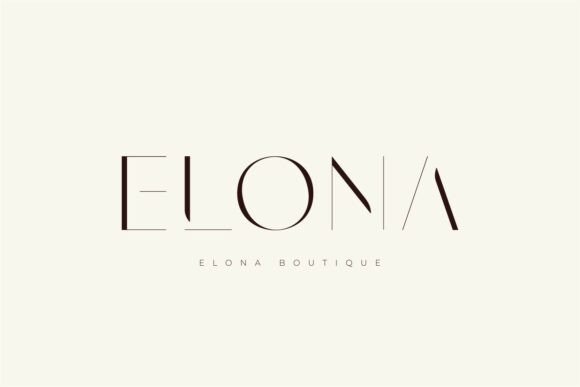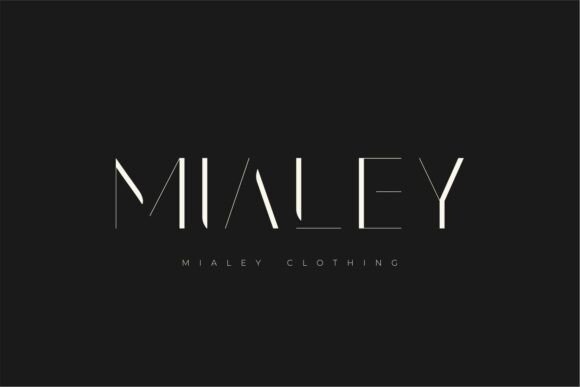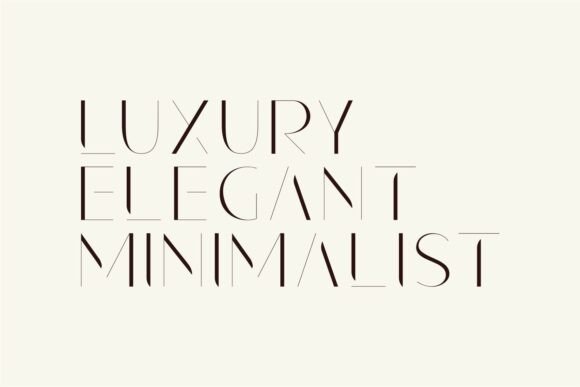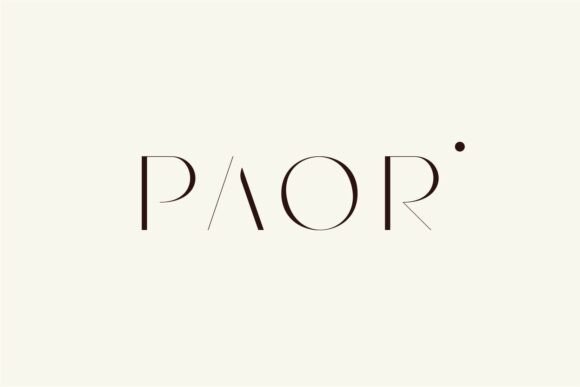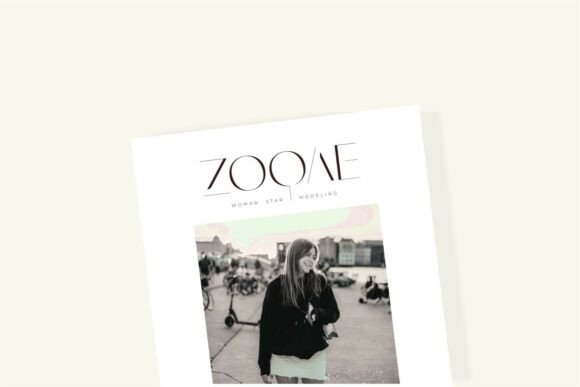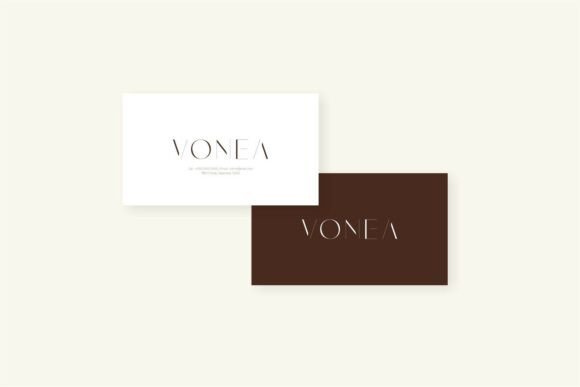
Introduction to Qepo Font
Imagine you’re in the middle of a creative project, and you’re searching for the perfect font to elevate your design. You’ve scrolled through countless options, but nothing seems to capture the essence of your vision. That’s where the Qepo Font comes in – a game-changing sans serif typeface that brings a touch of modern elegance to your work.
With its clean lines, elegant curves, and avant-garde letterforms, the Qepo Font is a valuable design resource for creatives. Its high-quality aesthetic and minimalist structure make it an ideal choice for branding, editorial layouts, logo design, packaging, and stylish social media content. Whether you’re working on a free download project or a high-stakes commercial campaign, this font is sure to impress.
What sets the Qepo Font apart is its ability to balance sophistication with subtle artistic flair, making it a must-have for designers looking to add a unique touch to their work. With its transparent background and versatile applications, this font is a true gem for any creative project.
Key Features of Qepo Font
- Unique characteristics include a modern, minimalist aesthetic and a wide range of language support.
Honest Review: Qepo Font
As a designer, I’m always on the lookout for high-quality design resources to elevate my creative projects. Recently, I stumbled upon the Qepo Font, and I’m excited to share my honest review with you.
- ✨ The Qepo Font is incredibly versatile and can be used for a wide range of creative projects, from logos to editorial designs.
- ✨ The high-quality design ensures that the font looks stunning, even with a transparent background.
- ⚠️ The font only comes in a limited number of styles, which may not be suitable for projects that require a lot of customization.
Overall, I’m impressed with the Qepo Font’s potential and would definitely recommend it to designers who are looking for a high-quality, free design resource. Just be aware of the limitations, and you’ll be good to go.
The Qepo Font is perfect for a variety of creative projects, including logos, business cards, and marketing materials. Its unique and stylish design makes it an ideal choice for designers and artists looking to add a touch of sophistication to their work.